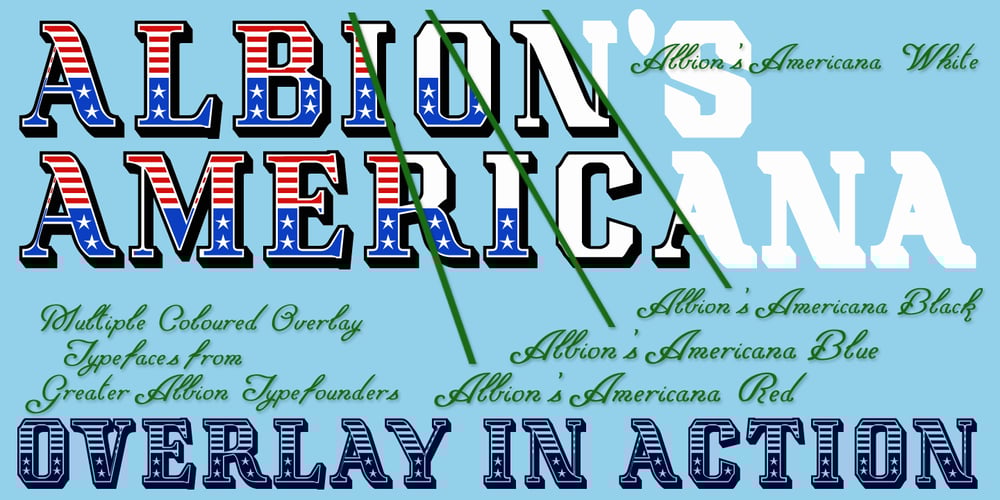
Albion’s Americana Font Family was designed by Paul James Lloyd and published by Greater Albion Typefounders. Albion’s Americana contains 2 styles and family package options. Albion’s Americana is a fun display family and a tribute to our transatlantic friends. The stars and stripes motif is applied to an American inspired all capitals Roman display face, producing something that is bold and boisterous and well…American. The regular face is intended for conventional use, while the ‘Black’, ‘Red’, ‘White’ and ‘Blue’ faces are designed to facilitate patriotic multi-coloured lettering (of course, you can use other colours as well). It’s worth trying out different combinations here- Black and White alone work well, as does read, white and blue minus black. Albion’s Americana Companion is also offered, intended as a small or all capitals face for subsidiary lettering. Next time you need some graphic typesetting with that American feel, this is your answer!